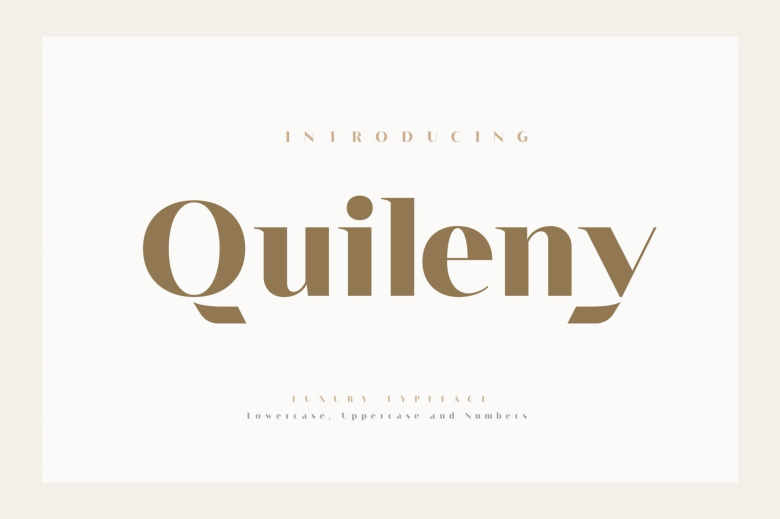
Quileny Font
Introduction Quileny Bold Serif Font Enjoy its resurgence in just an incredibly versatile style for your wedding invitations, the beautiful stationary art, eye-catching social media posts and a lot more!
Quileny Serif Font